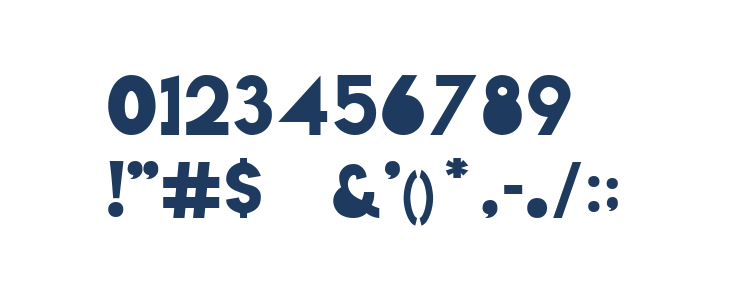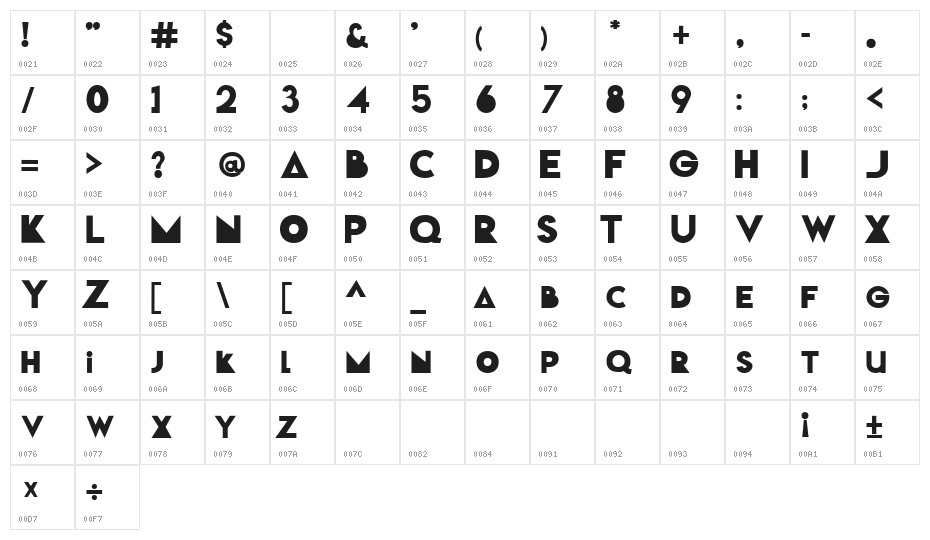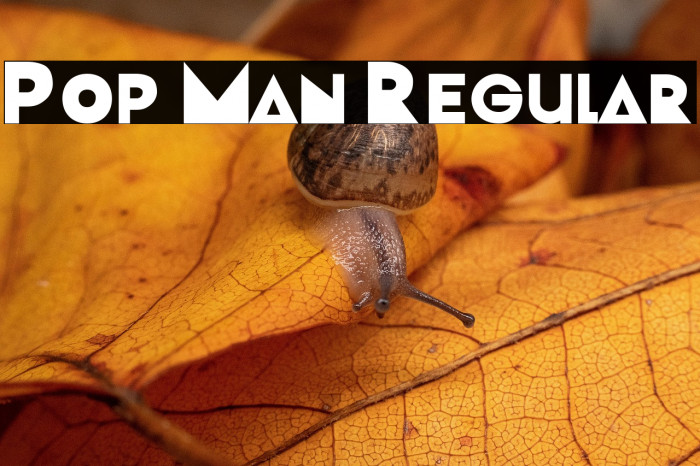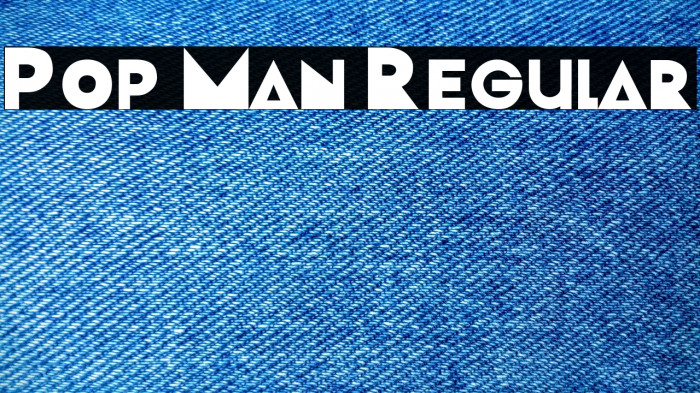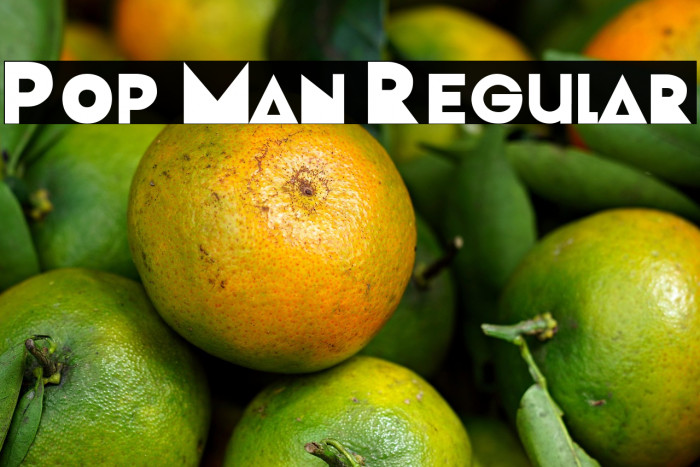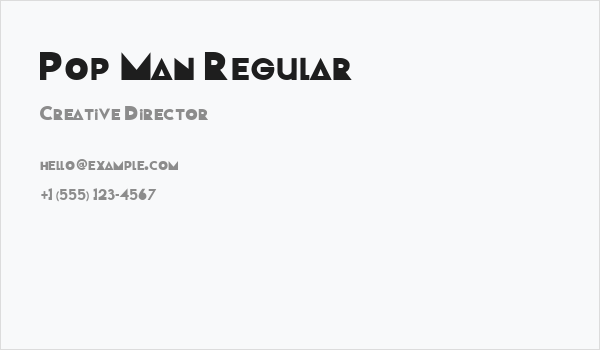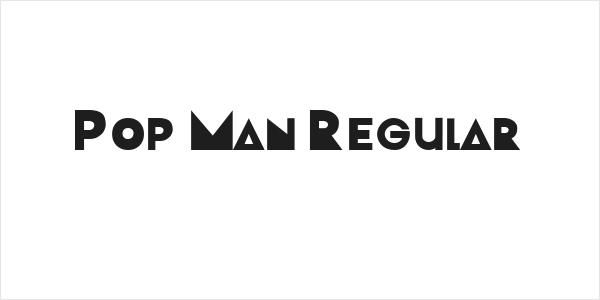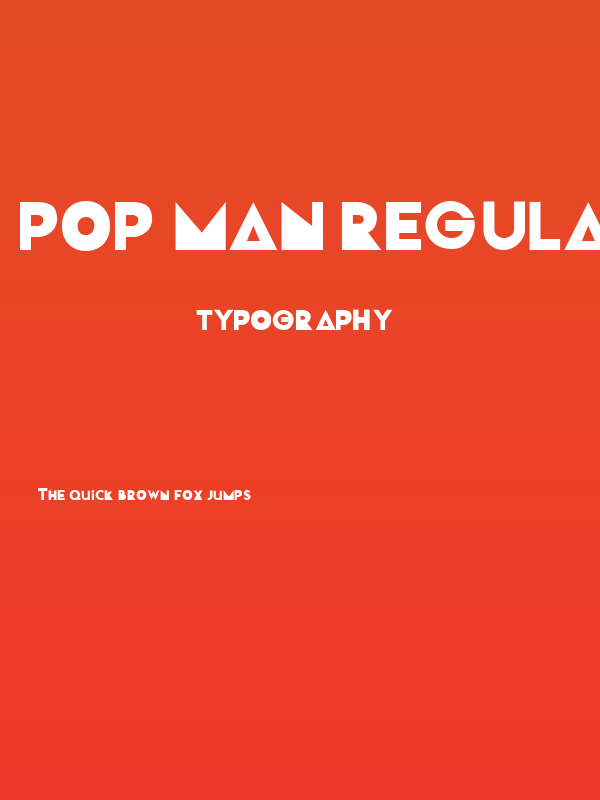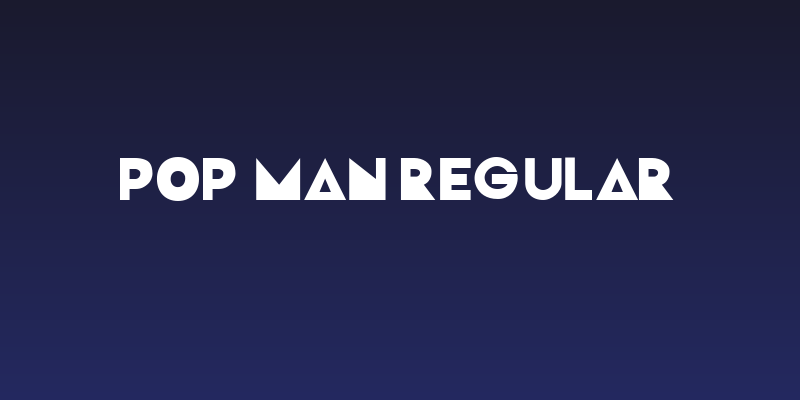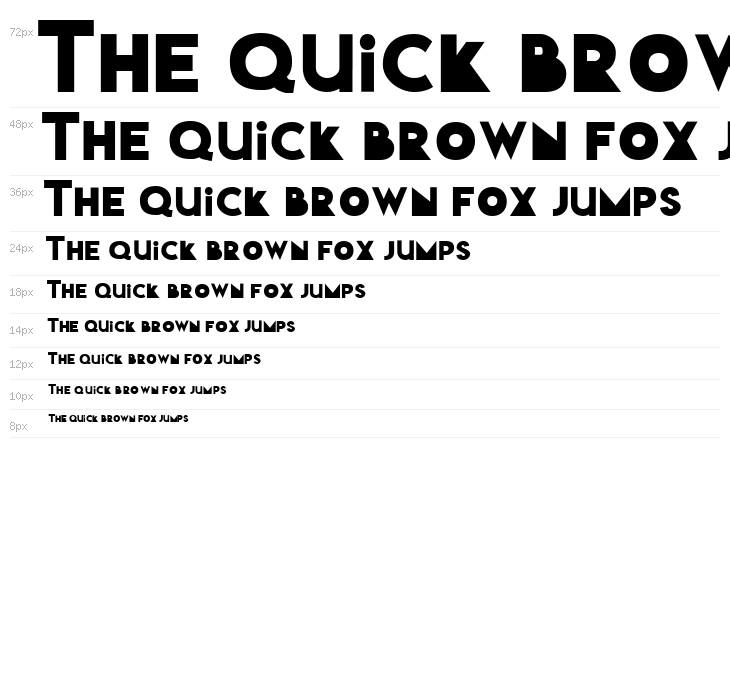
Pop Man Regular Font
Pop Man Regular Description
This font features a bold, geometric design with sharp angles and clean lines, creating a striking and modern appearance. The uppercase letters are particularly distinctive, with some characters incorporating triangular and angular elements that add a unique flair. The numbers and special characters maintain this geometric style, ensuring consistency across all glyphs. The overall look is bold and impactful, making it ideal for attention-grabbing designs. The font's strong visual presence makes it suitable for projects that require a modern and edgy aesthetic.
| Proposed Projects | Ideal for branding, posters, headlines, and any design requiring a modern and bold aesthetic. |